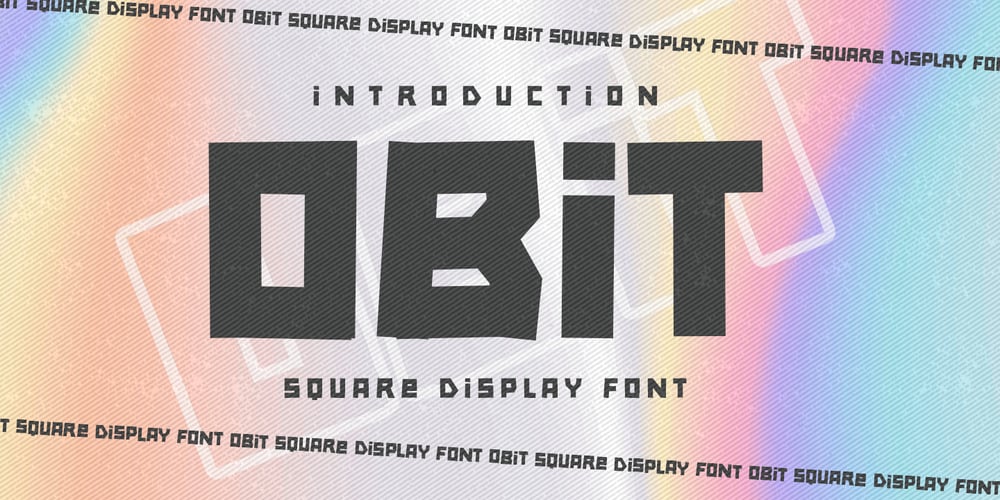
Obit
Obit font
Obit Font Family was designed by Abdul Malik Wisnu, Anang Fibriyanto and published by Gassstype. Obit contains 1 styles and family package options. Hello Everyone,introduce our new product OBIT is a Square Display Font This a Textured Natural Style and classy style, this font is great for your creative projects such as watermark on photography, and perfect for logos & branding, photography, invitation, watermark,advertisements,product designs, stationery, wedding designs,label ,product packaging, special events or anything that need handwritting taste.This is OBIT a natural handwritten feel.